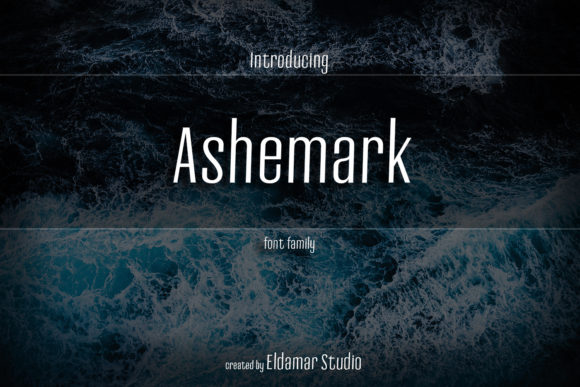
First Impressions: A Love Affair with Ashemark
The Ashemark Font is a minimal and neat sans serif font that has quickly become a staple in my design toolkit. Its versatility is impressive, making it suitable for an incredibly large set of projects. From branding and advertising to crafting and hobbyist projects, Ashemark brings a level of sophistication and elegance that’s hard to match.
- ✅ Versatility: Ashemark can be used for a wide range of projects, from digital designs to print materials.
- ✨ Aesthetic Appeal: Its clean, sans serif lines make it both modern and timeless.
- 💡 Legibility: Even at smaller sizes, Ashemark remains clear and easy to read.
- 🎨 Creative Freedom: With its range of OpenType features and glyphs, Ashemark offers plenty of room for creative experimentation.
While Ashemark is incredibly versatile, there are a few things to keep in mind. ⚠️ Some users might find the lack of extremely bold weights limiting for certain applications. Additionally, while the font is highly legible, it may not be the best choice for very long blocks of text due to its design focus on clean lines and minimalism.
One of the standout features of Ashemark is its support for OpenType features and a range of glyphs. These allow for advanced typographic control, including:
- Stylistic alternates for varied design approaches
- Ligatures for improved text flow
- Glyphs for adding unique touches to your designs
Experimenting with these features can elevate your designs, adding a layer of sophistication and personality.
The Story Behind Ashemark
The Ashemark Font was designed with the modern creator in mind. Its designer sought to create a font that was both clean and versatile, capable of meeting the demands of a wide range of projects. Inspired by the simplicity and elegance of modern design, Ashemark was crafted to be a go-to choice for designers and hobbyists alike.
Q: Is Ashemark suitable for body text?
A: While Ashemark is highly legible, its design focus is on clean lines and minimalism, making it more suited for headings and shorter blocks of text.
Q: Does Ashemark support non-English languages?
A: Ashemark’s character set includes support for many languages. For specific language support, review the font’s character map or contact the designer.
Q: How does Ashemark compare to other sans serif fonts?
A: Ashemark stands out for its clean lines, modern aesthetic, and versatility. Compared to other sans serifs, it offers a unique balance of simplicity and elegance.